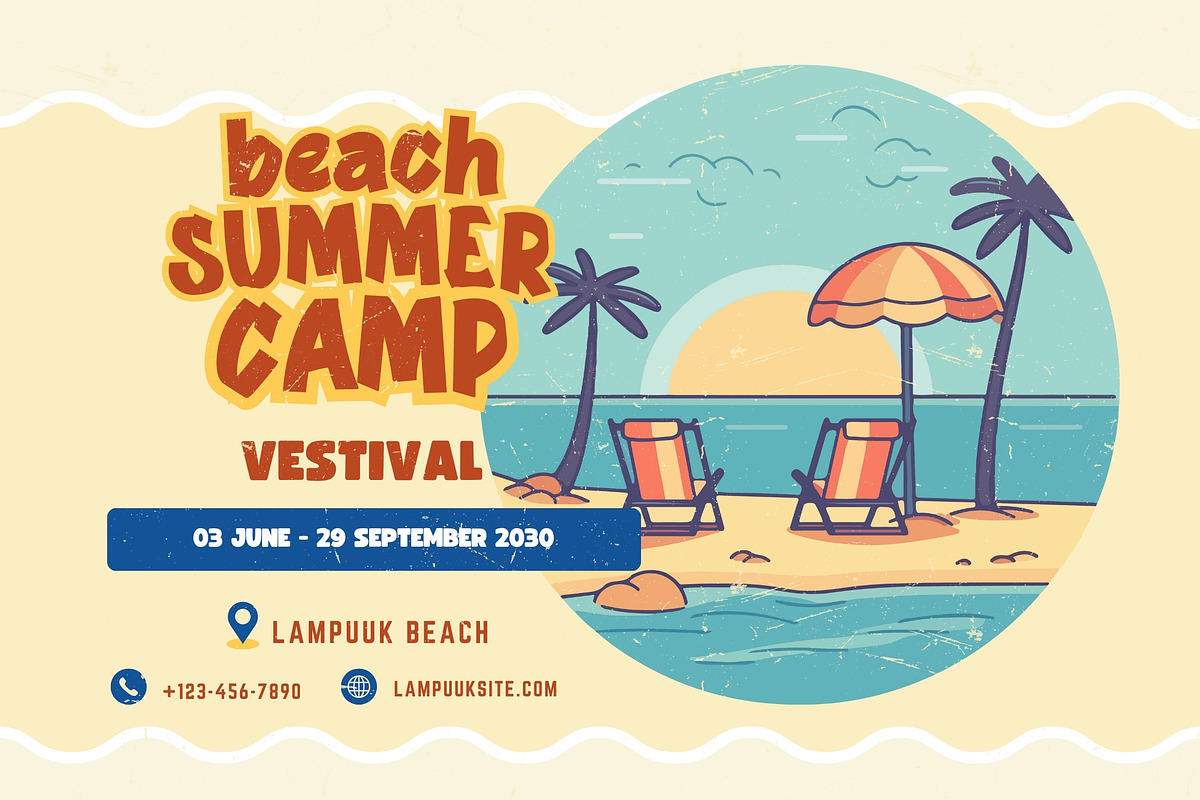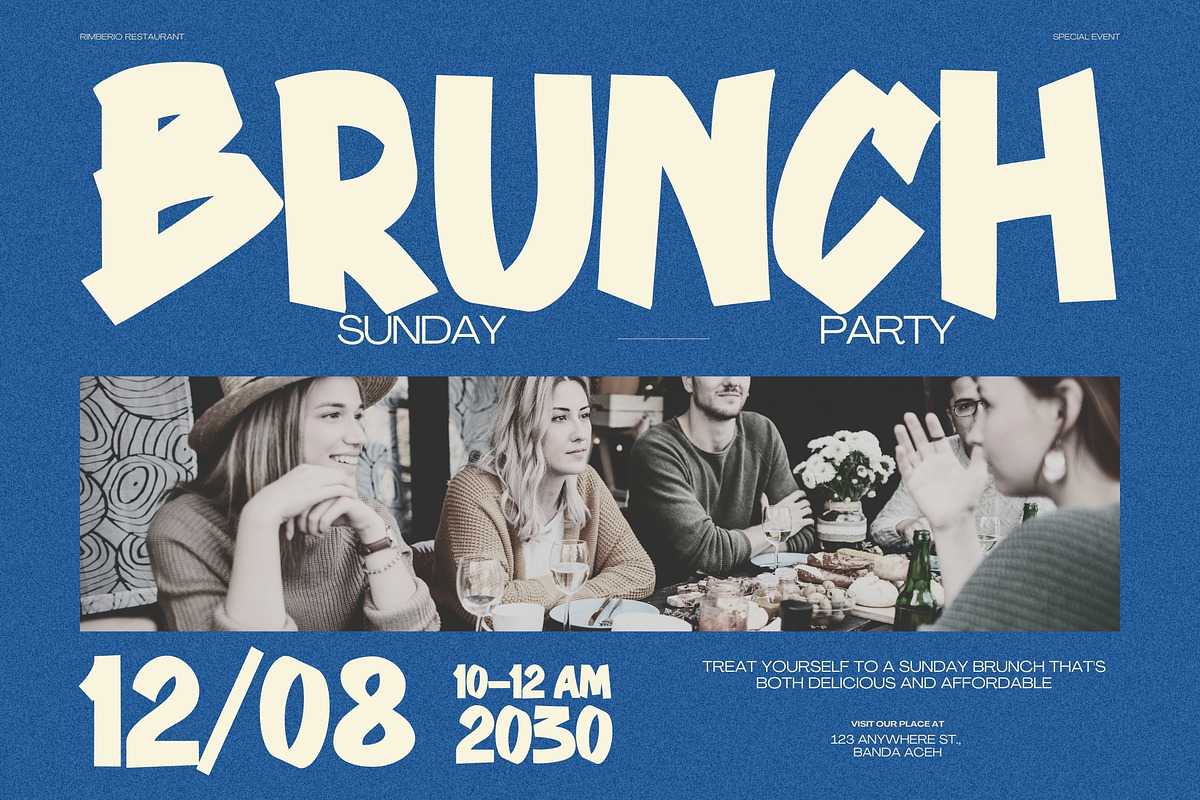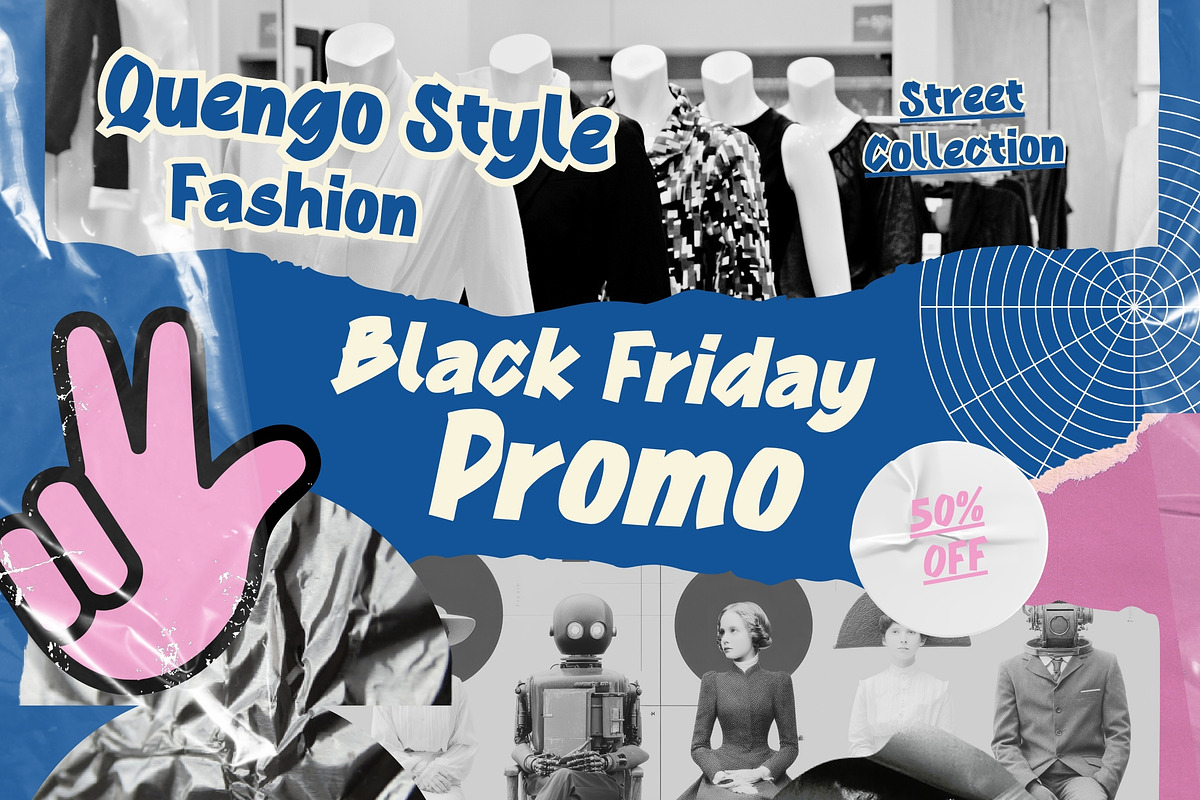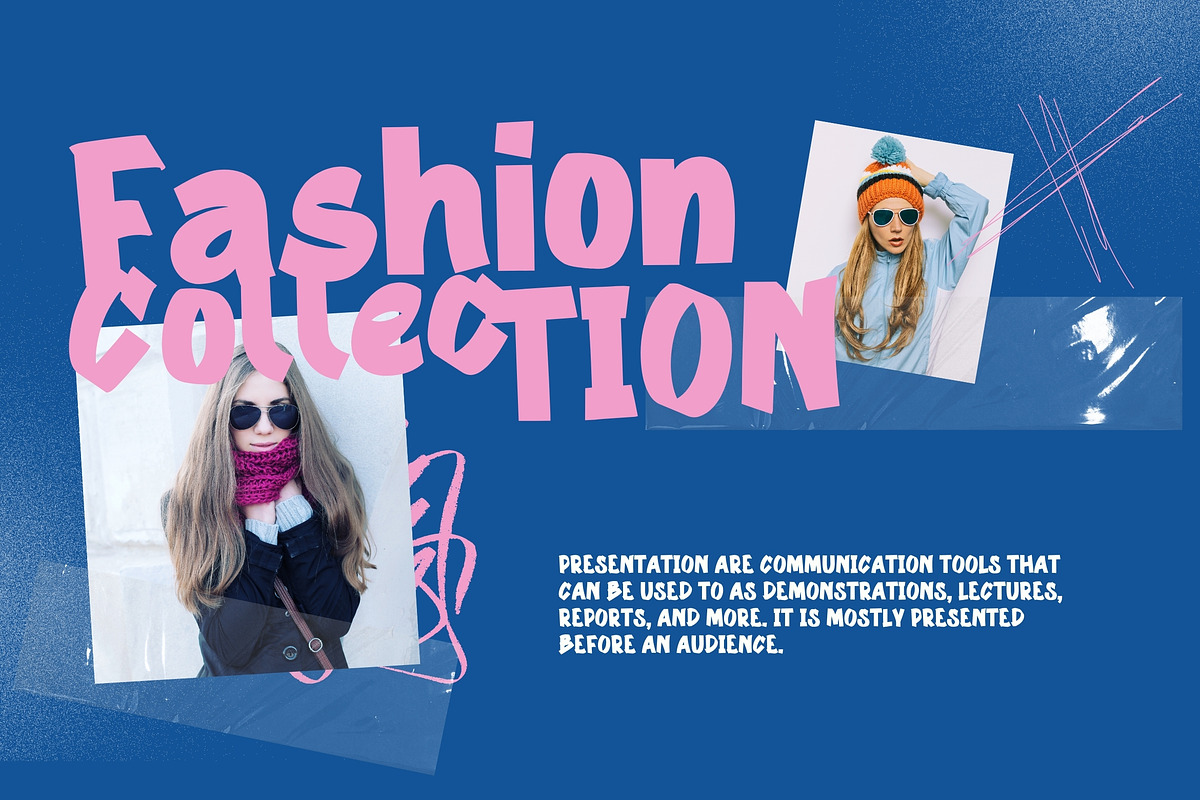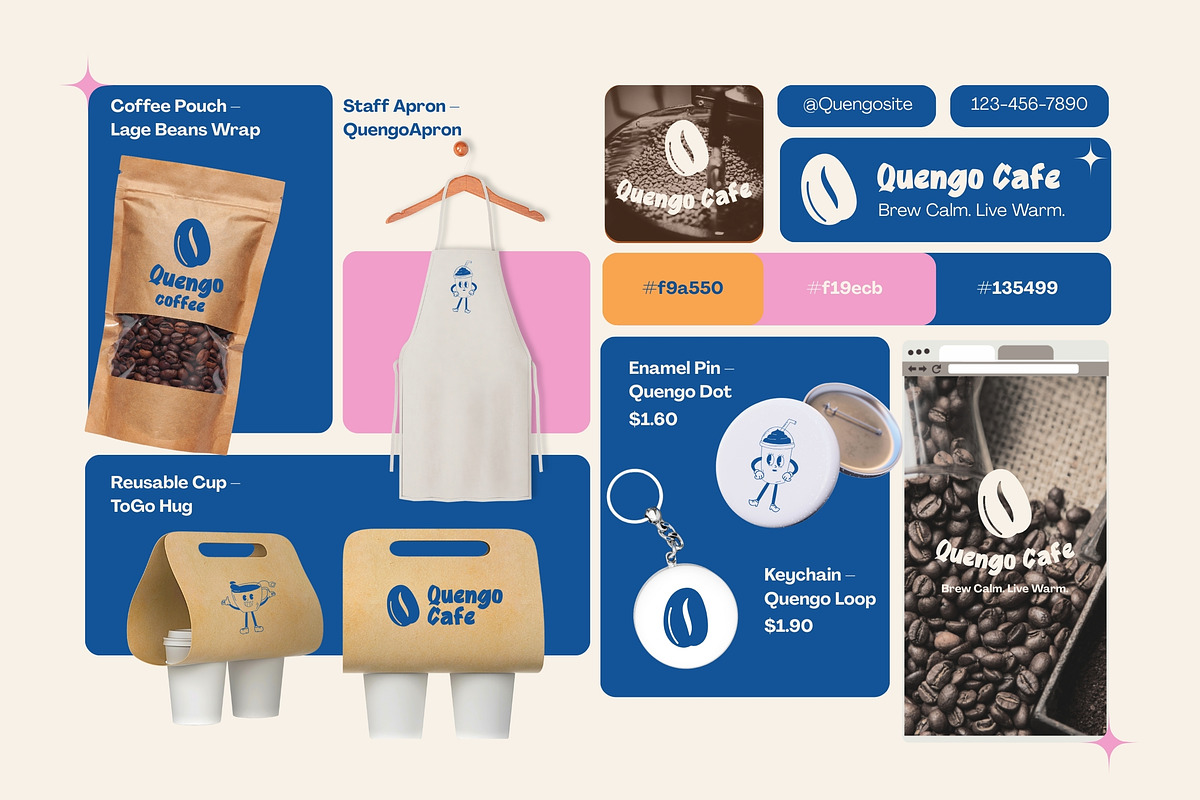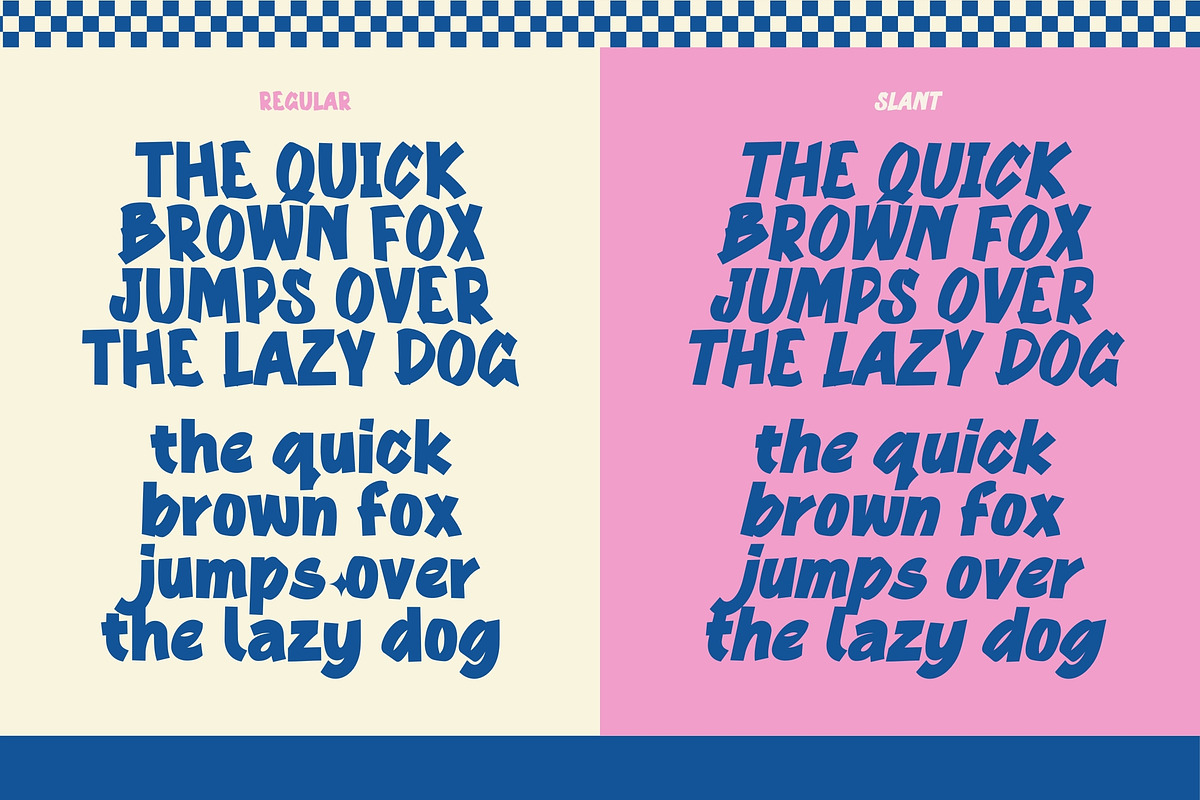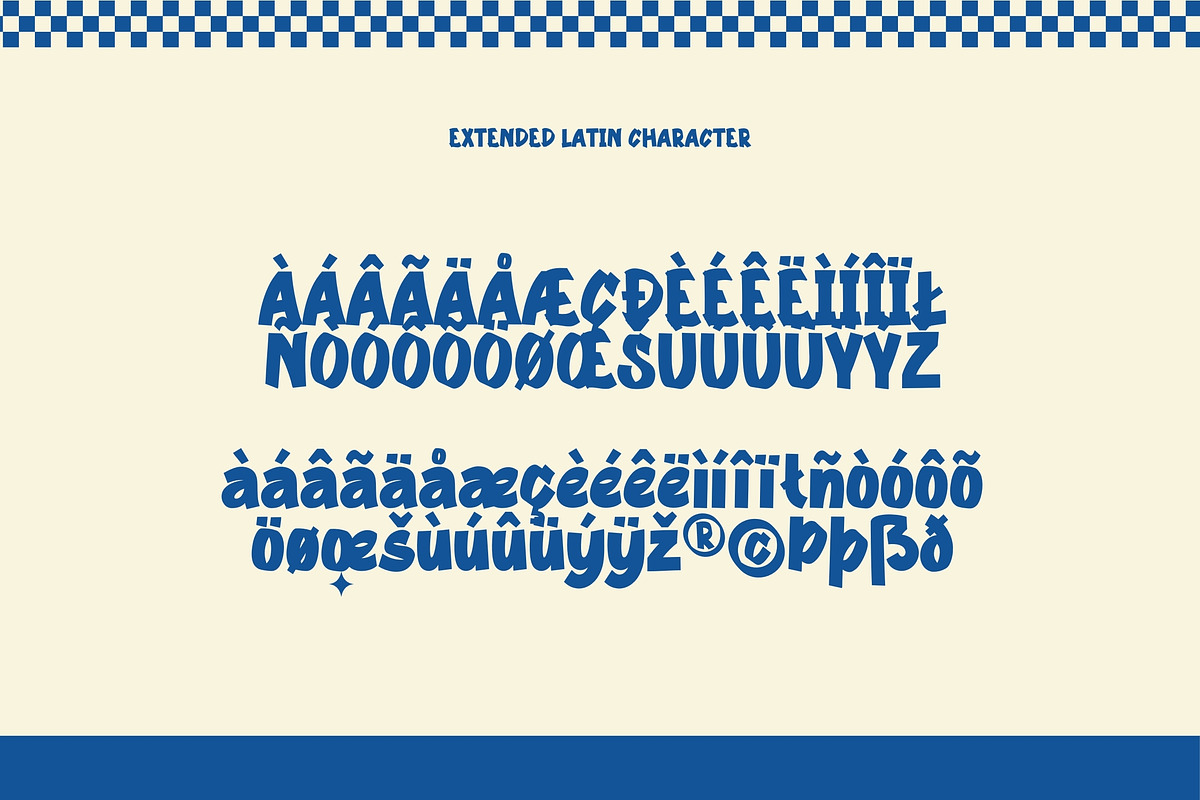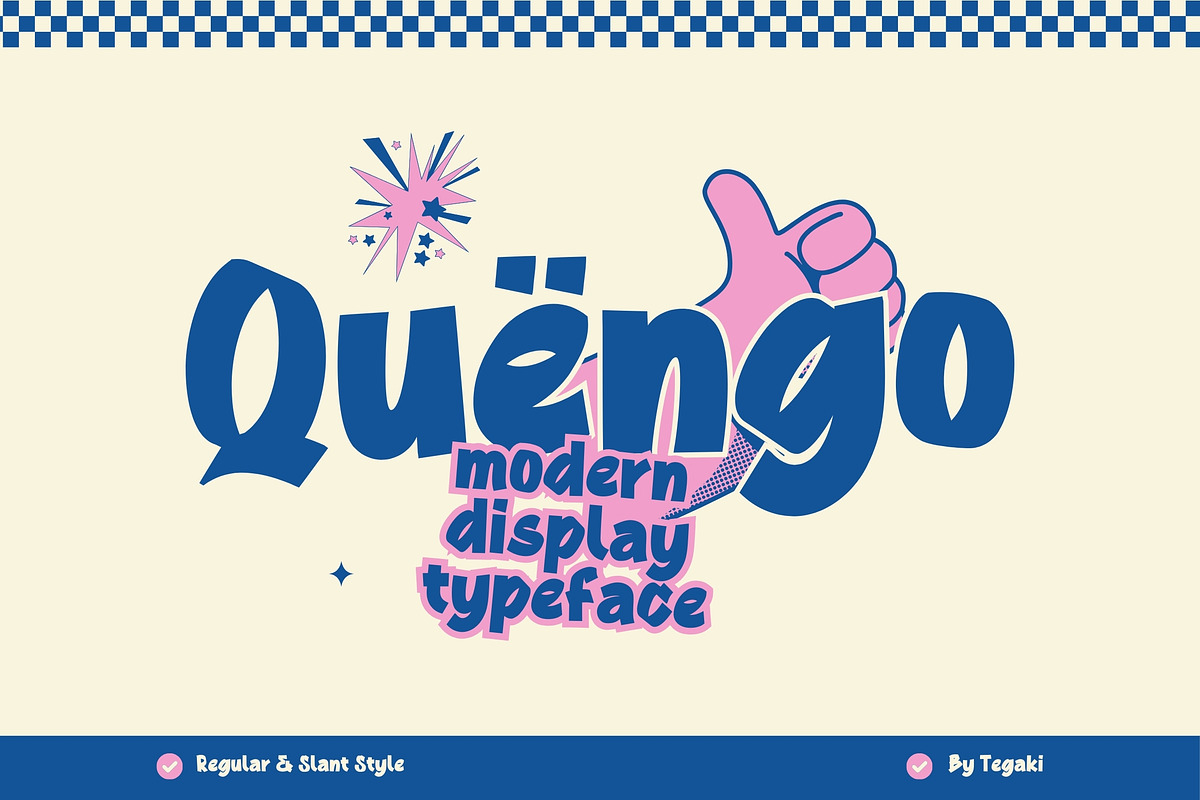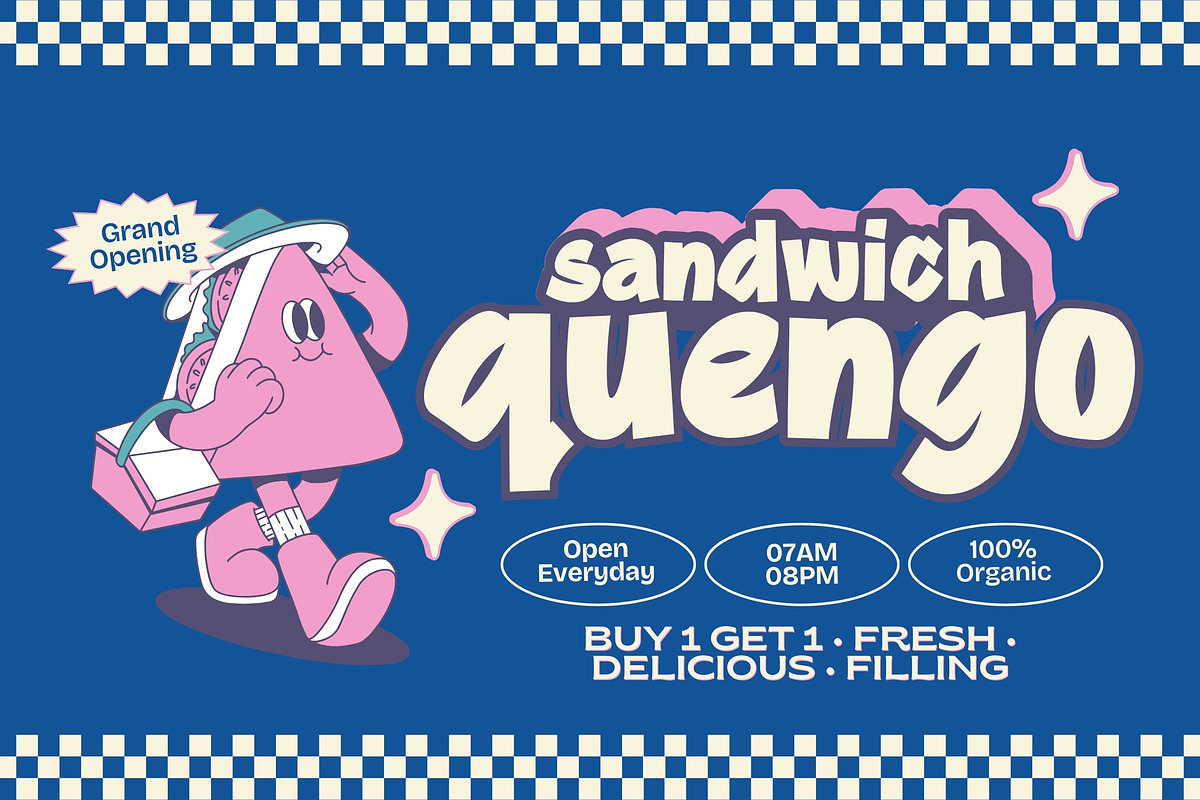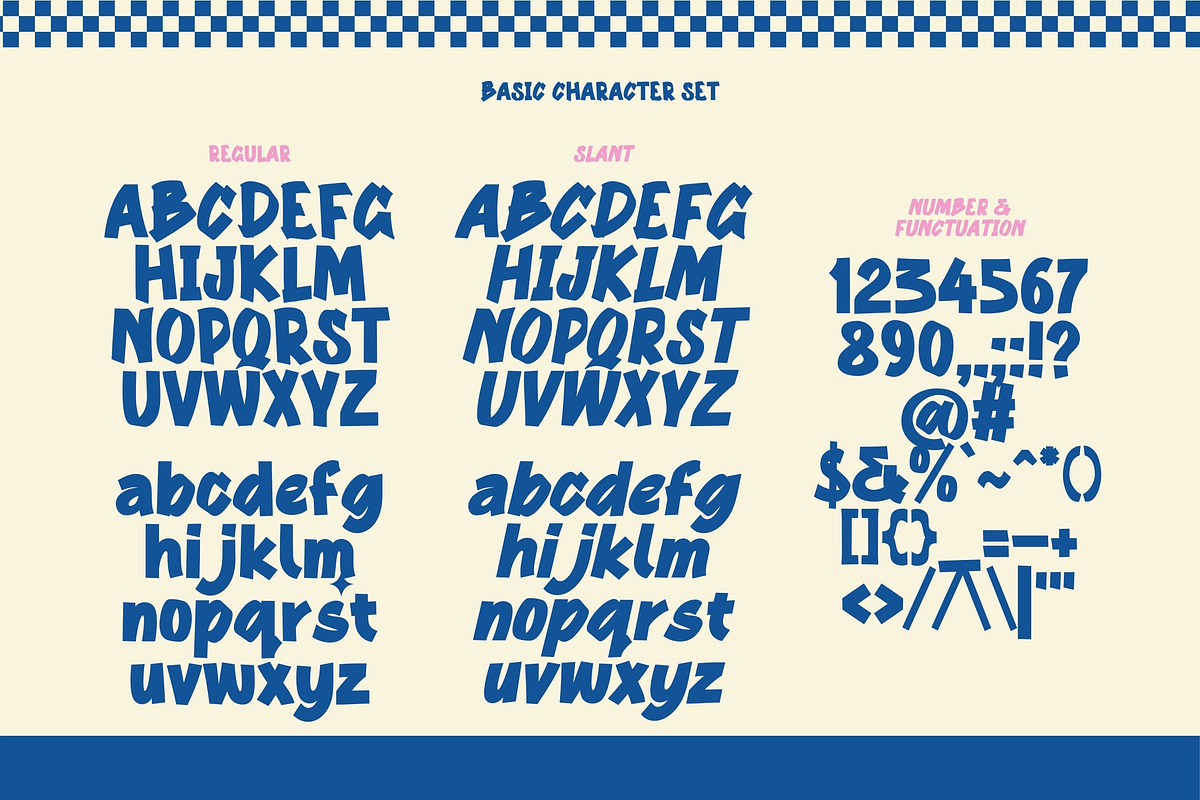
Quengo
Introducing Quengo
Quengo – Modern Display Typeface
Quengo is a bold modern display typeface infused with a playful retro attitude. Designed to command attention, it features smooth curves, chunky letterforms, and confident proportions that make every headline feel powerful and expressive.
Inspired by vintage pop graphics and nostalgic poster aesthetics, Quengo brings a fresh contemporary edge to classic retro energy. It’s built for designers who want their typography to stand out — loud, fun, and full of personality. Quengo comes with two styles : regular and slant.
Perfect for branding, packaging, posters, editorial titles, social media graphics, merchandise, logos, and any project that needs a striking display presence. With its retro-inspired charm and modern construction, Quengo delivers both character and versatility in one powerful type family.